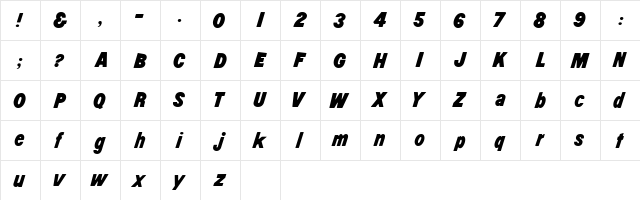
Black Oblique HPLHS
Design Context for Black Oblique Typeface
Black Oblique offers clean, dependable letterforms without strong stylistic allegiance, making it a practical choice for designers who need flexibility. The dynamic lean of this cut emphasises speed and emphasis in any layout.
Pro Tip: Try Black Oblique for annotation and caption copy alongside an upright companion — the contrast in angle creates a dynamic but ordered typographic system.